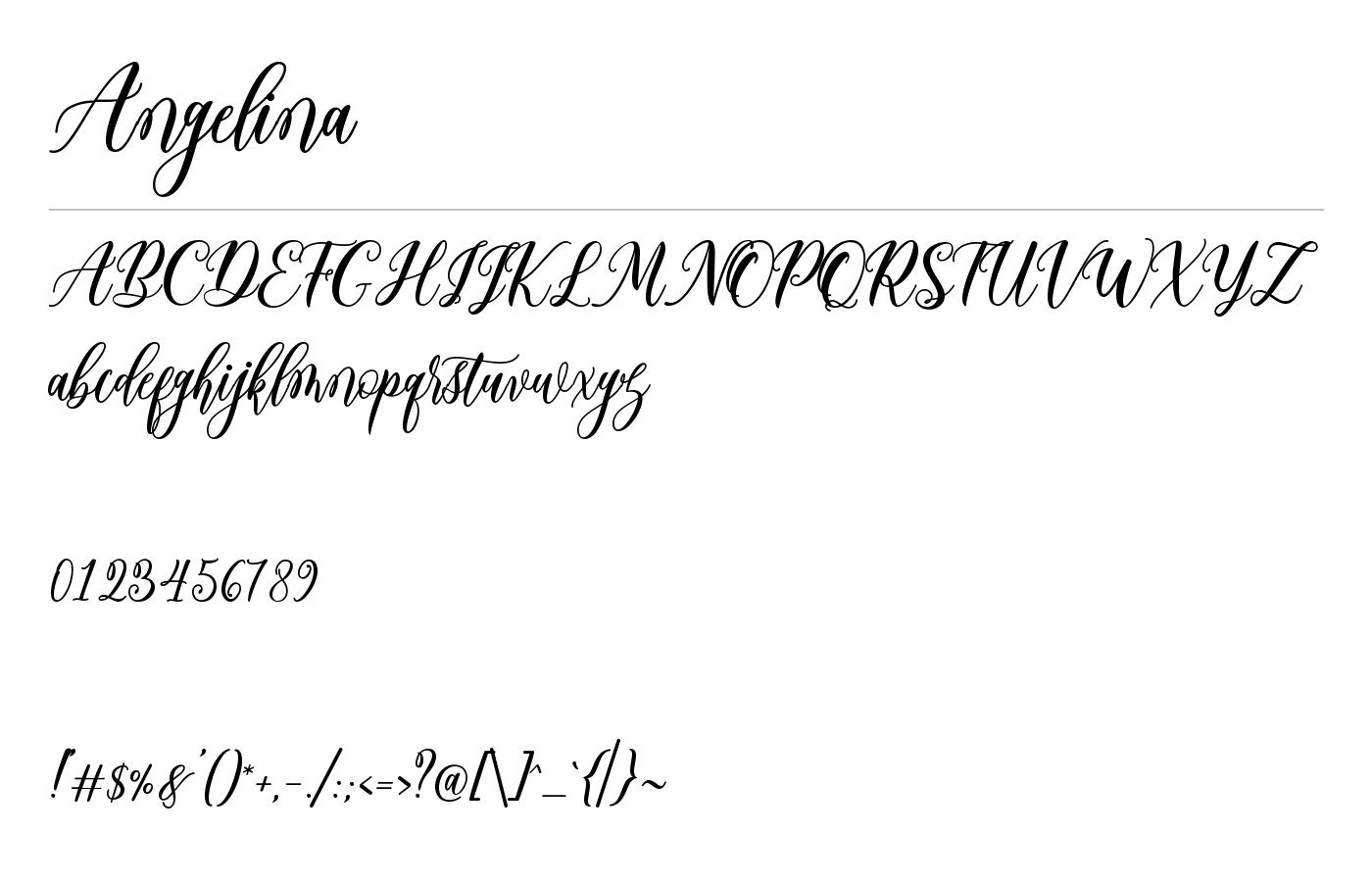
Angelina is an elegant script font characterized by its flowing, delicate strokes and graceful cursive style, making it perfect for sophisticated and feminine designs. Its slender letterforms with varying stroke widths convey a handwritten charm that works beautifully for invitations, branding, and fashion-related projects seeking a refined and personal touch. This font shines in settings where elegance and a touch of romance are desired, providing both beauty and readability in decorative text.
Angelina Font
About Angelina Font